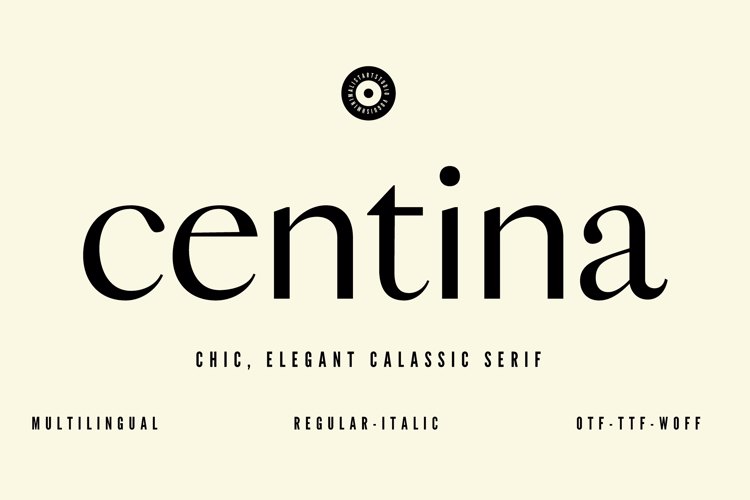
centina Font
๐จ Font Name: Centina by Minimalist Art Studio
๐จ Font Description: Centina is a chic, elegant classic serif with multilingual supportโperfect for boutique branding, editorial layouts, and timeless packaging.
โ Complete Latin set + multilingual diacritics
โ Alternates, stylistic sets & ligatures
โ Numbers, small caps, and extended punctuation
โ Bonus italics and family styles